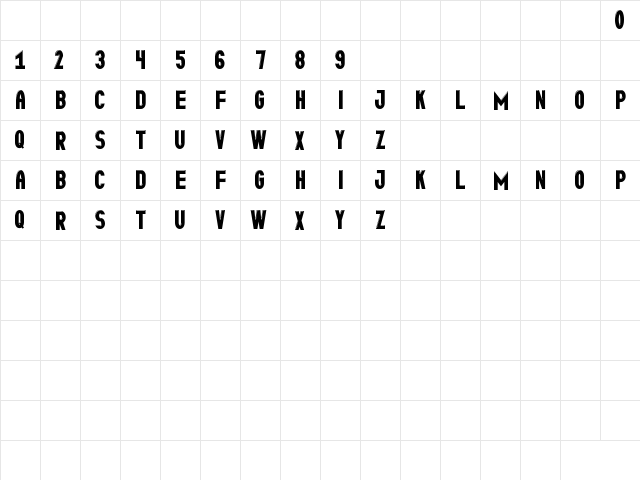
Brillante St Regular
Design Context for Brillante St Typeface
Brillante St is a composed and adaptable typeface that performs quietly and consistently across a wide range of design contexts.
Pro Tip: Use Brillante St in both headline and body roles to test its range before committing to a single application.